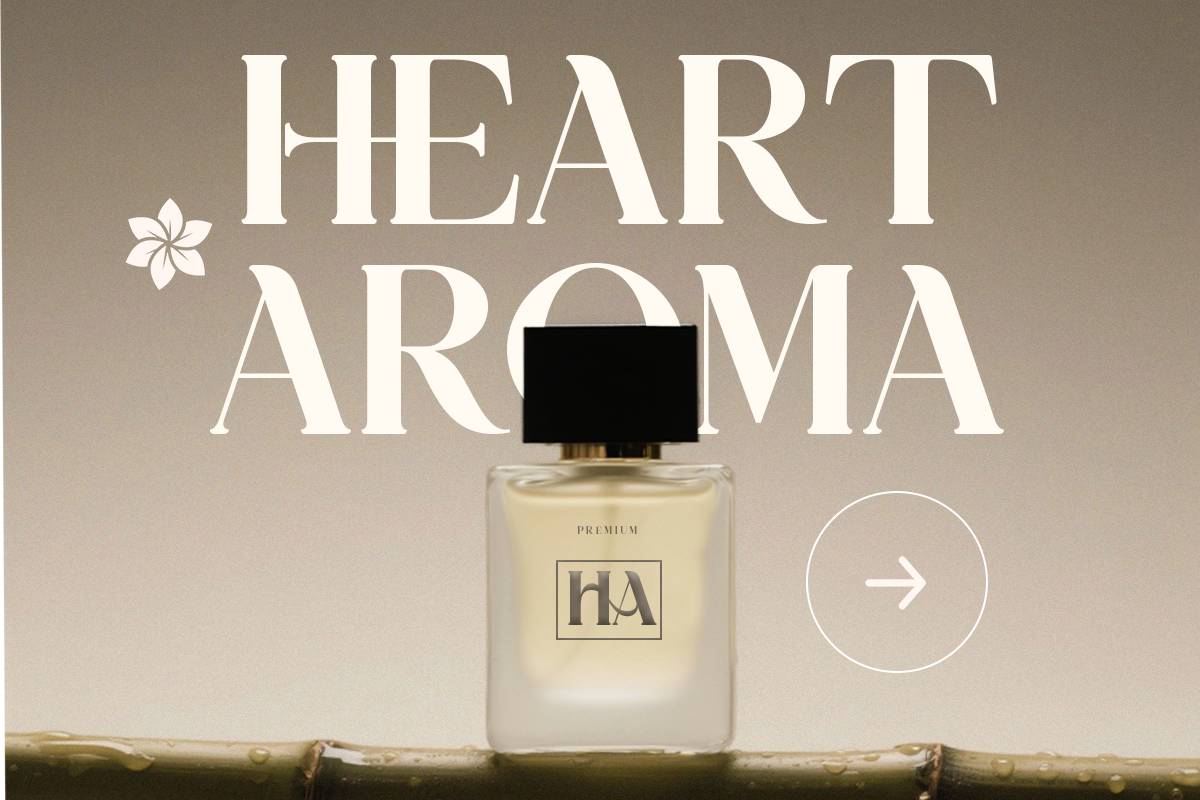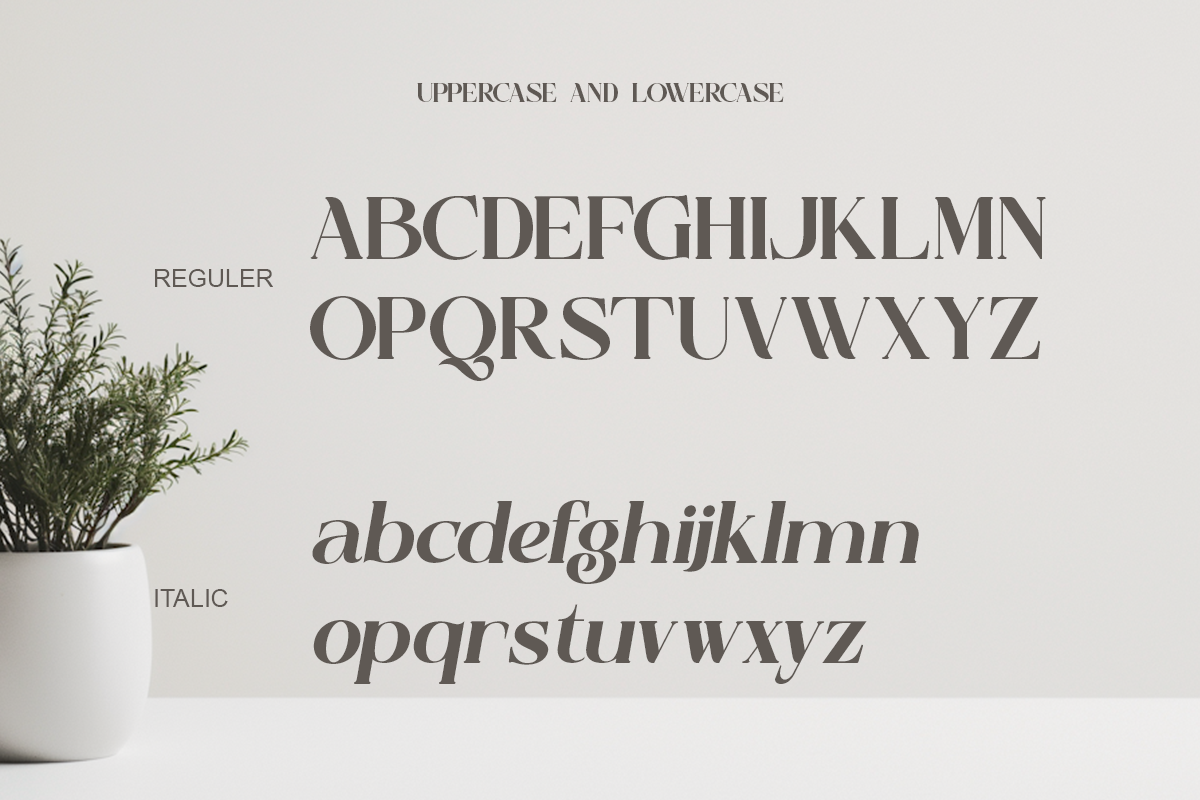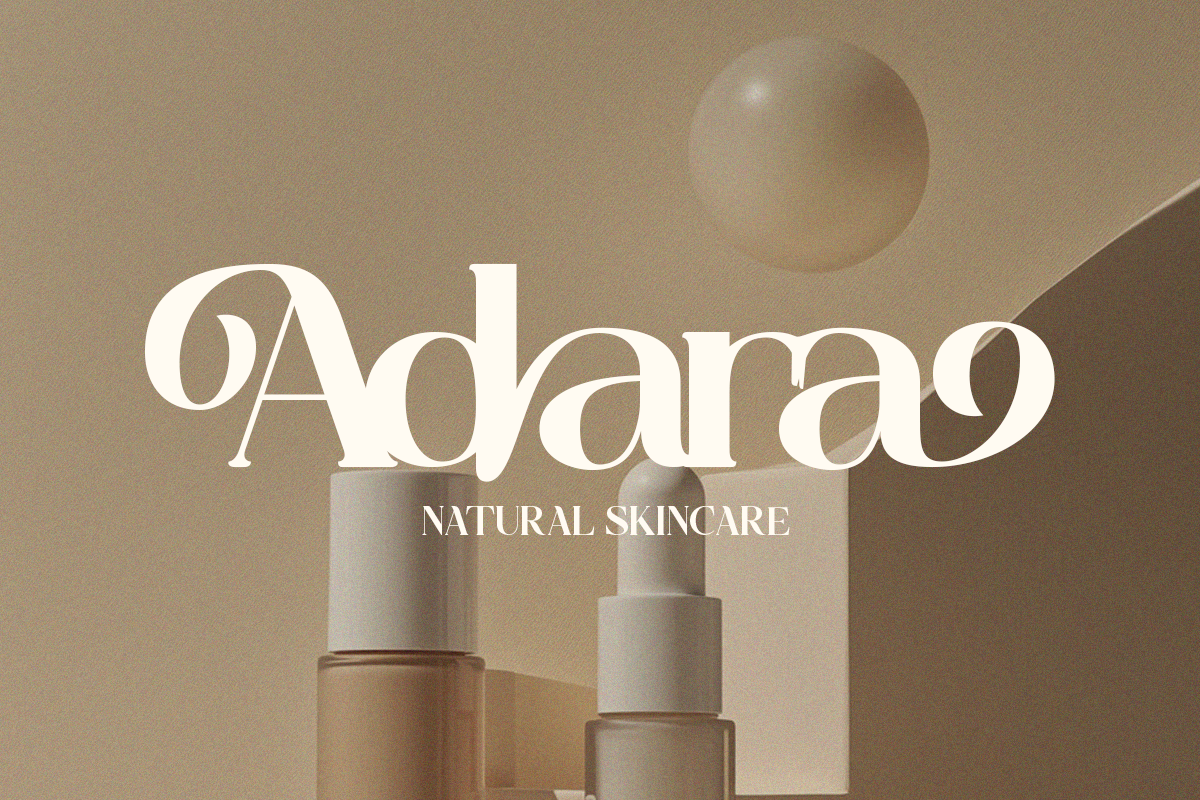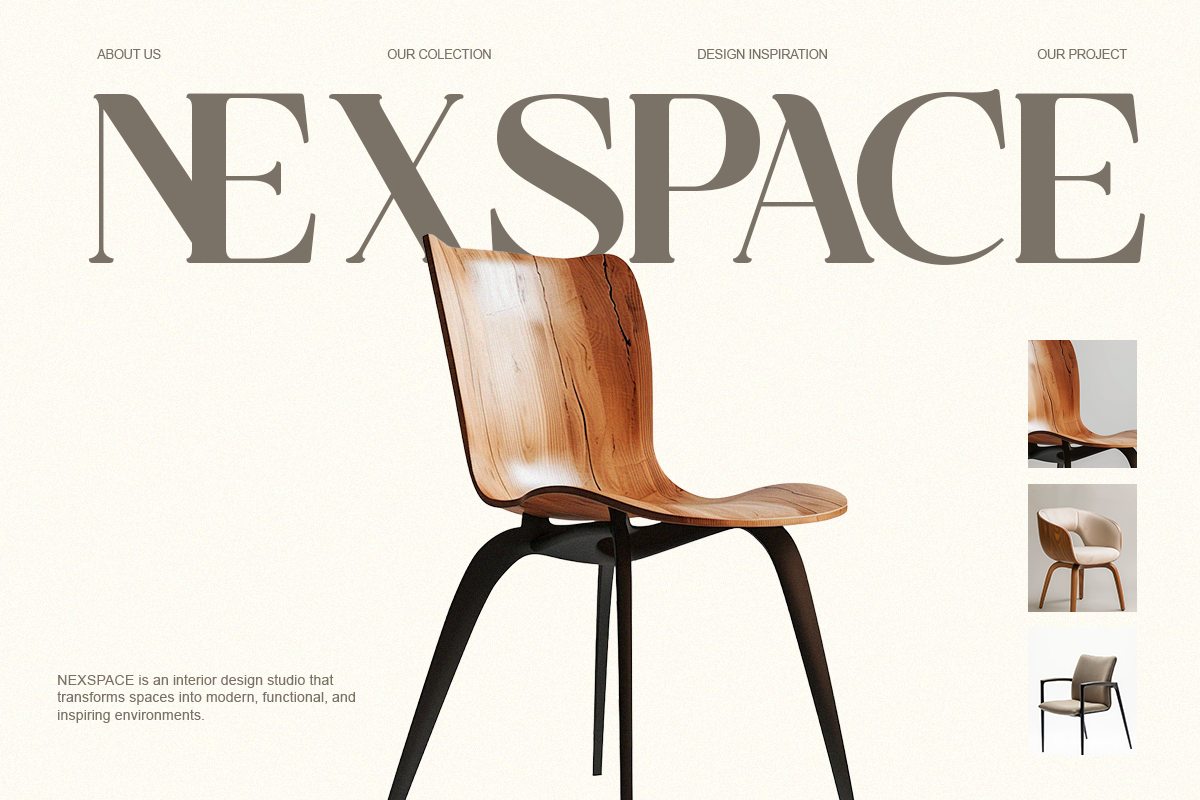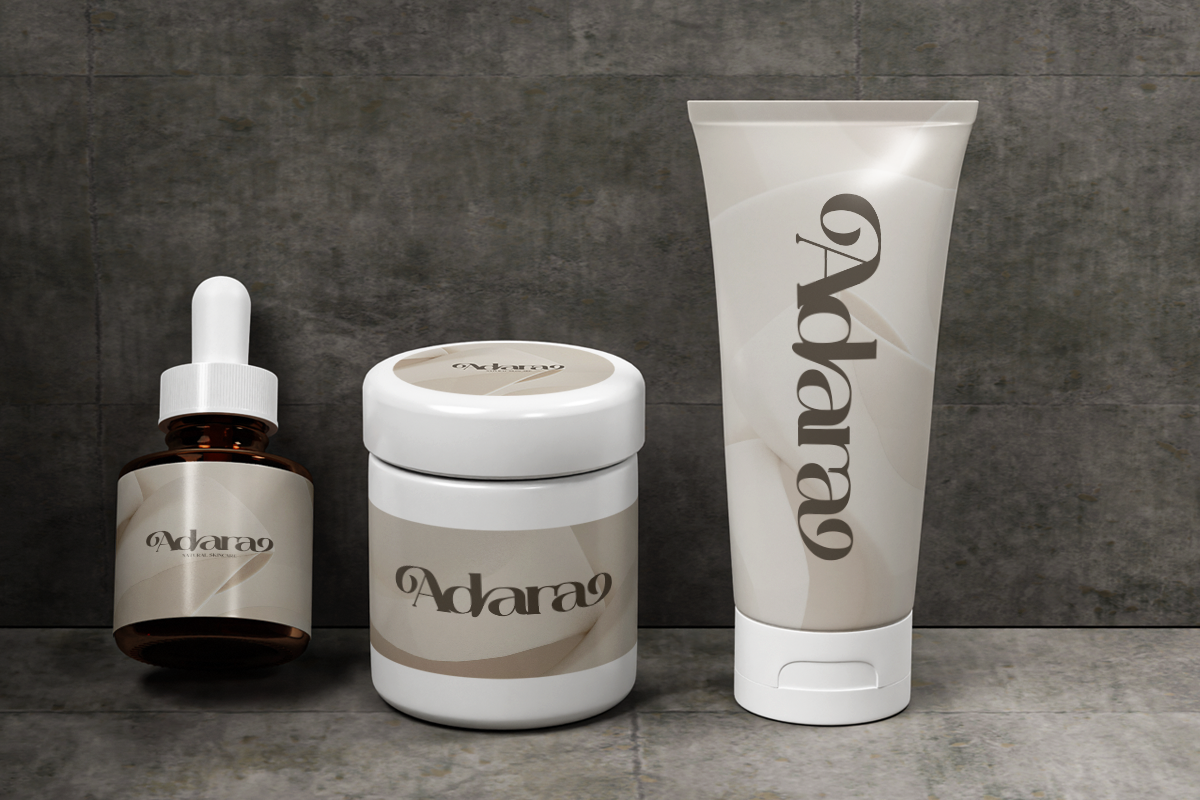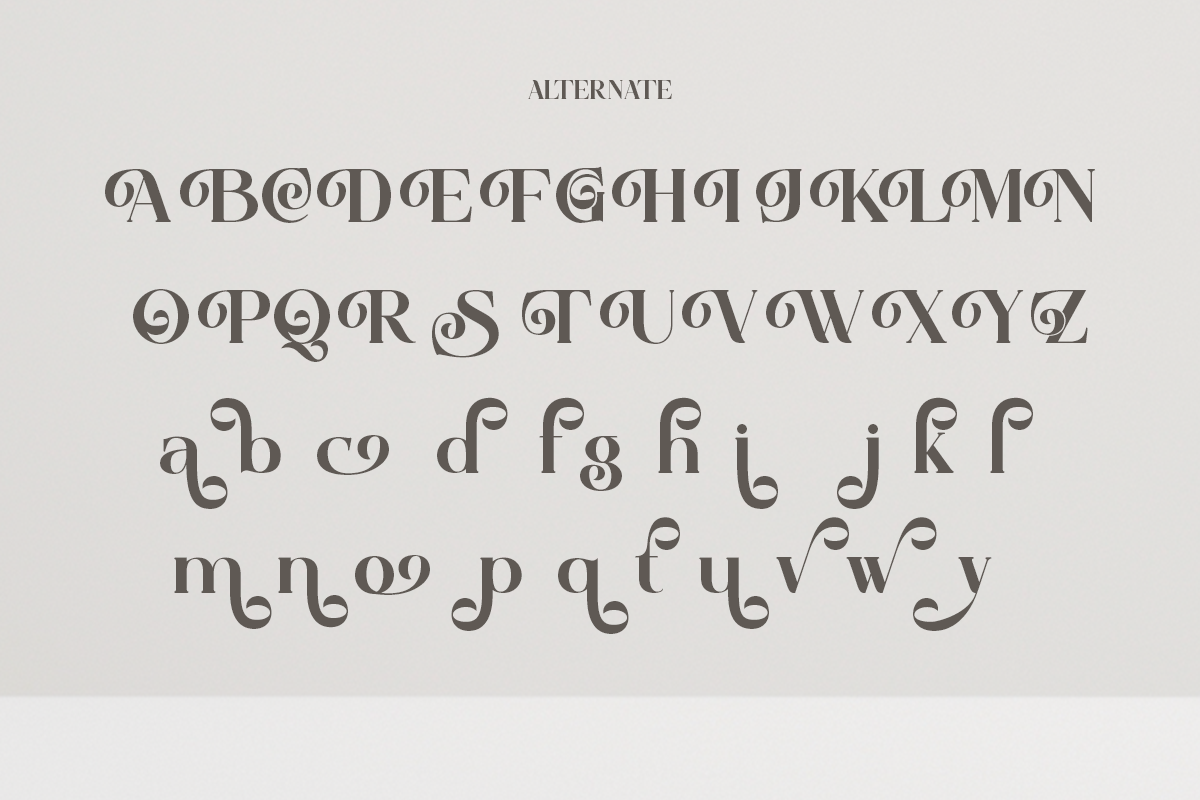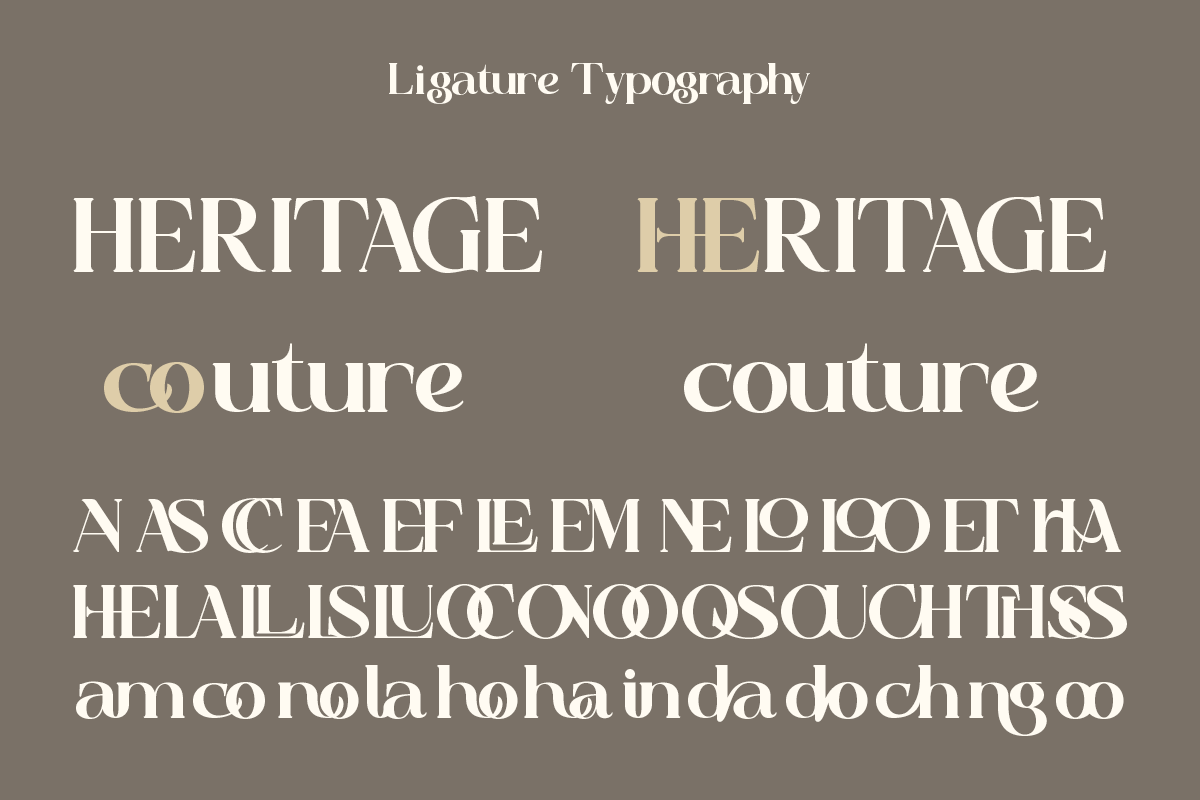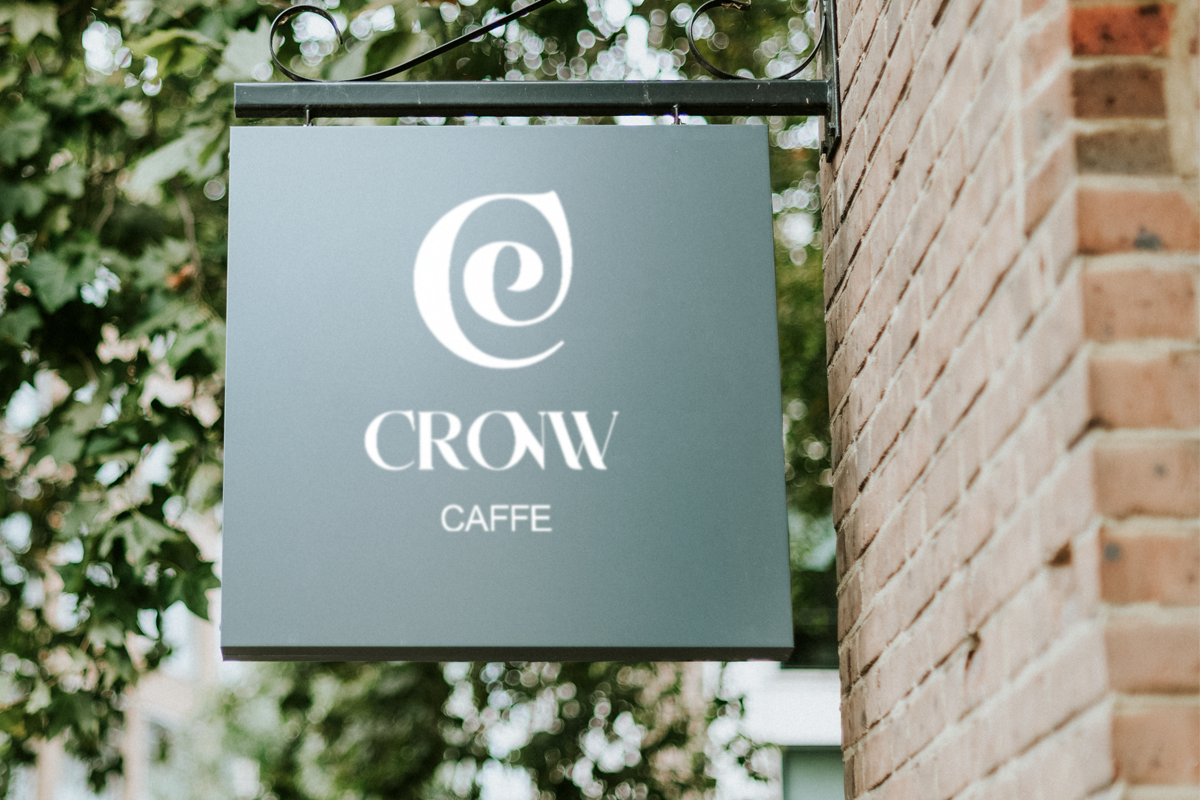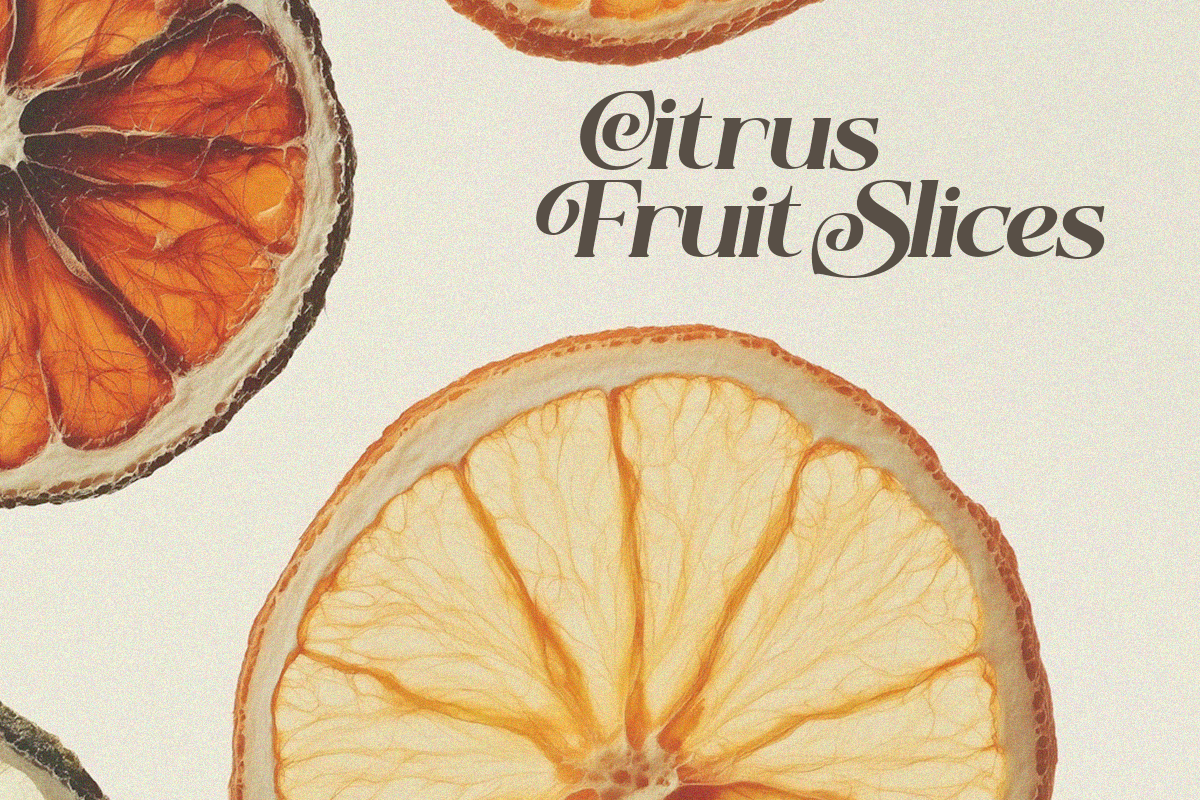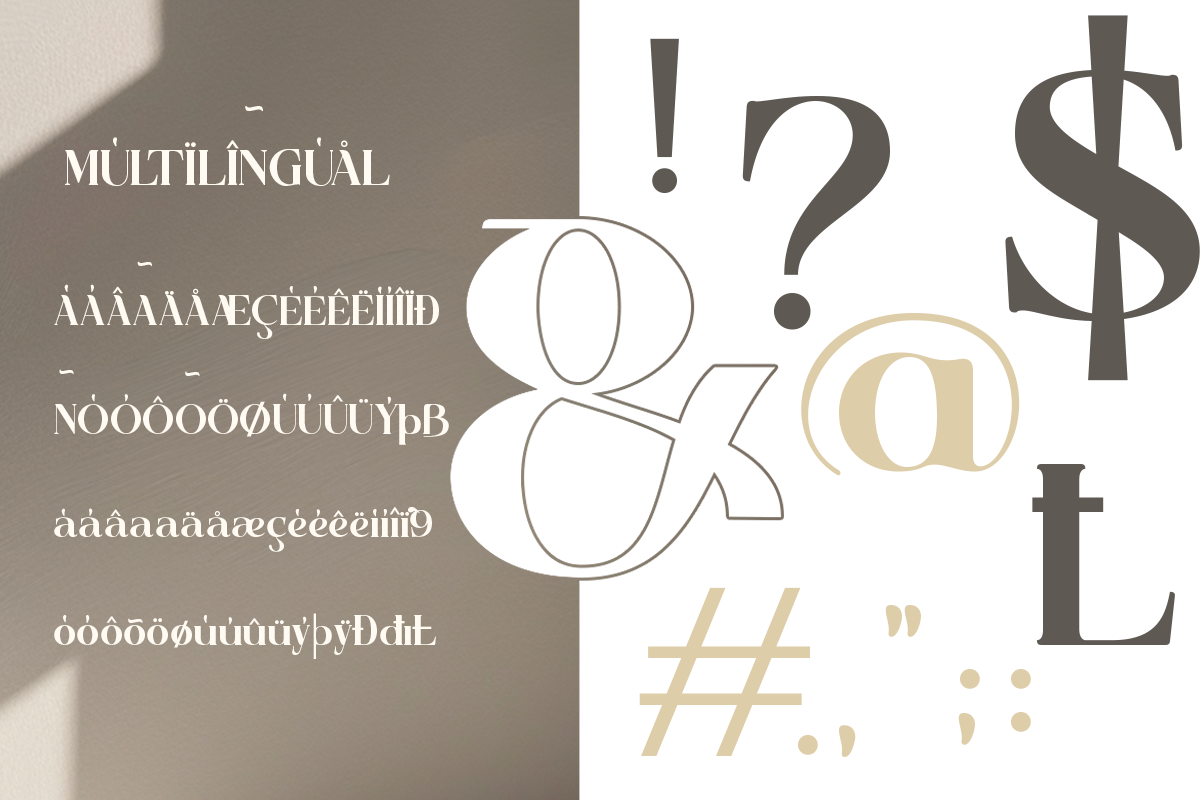
Slamyon - Elegant Swash Display
Slamyon is a modern elegant swash serif designed for sophisticated branding and editorial layouts. Its graceful curves and stylish ligatures create a premium typographic tone.
Perfect for logos, fashion branding, packaging, and magazine headlines, Slamyon blends modern luxury with timeless serif elegance.
Designed for designers seeking elegant display typography with soft personality.
- Regular & Italic
- Alternates & ligatures
- Swash characters
- Elegant contrast structure
Luxury branding, logo design, editorial typography, fashion identity, packaging design, boutique branding.